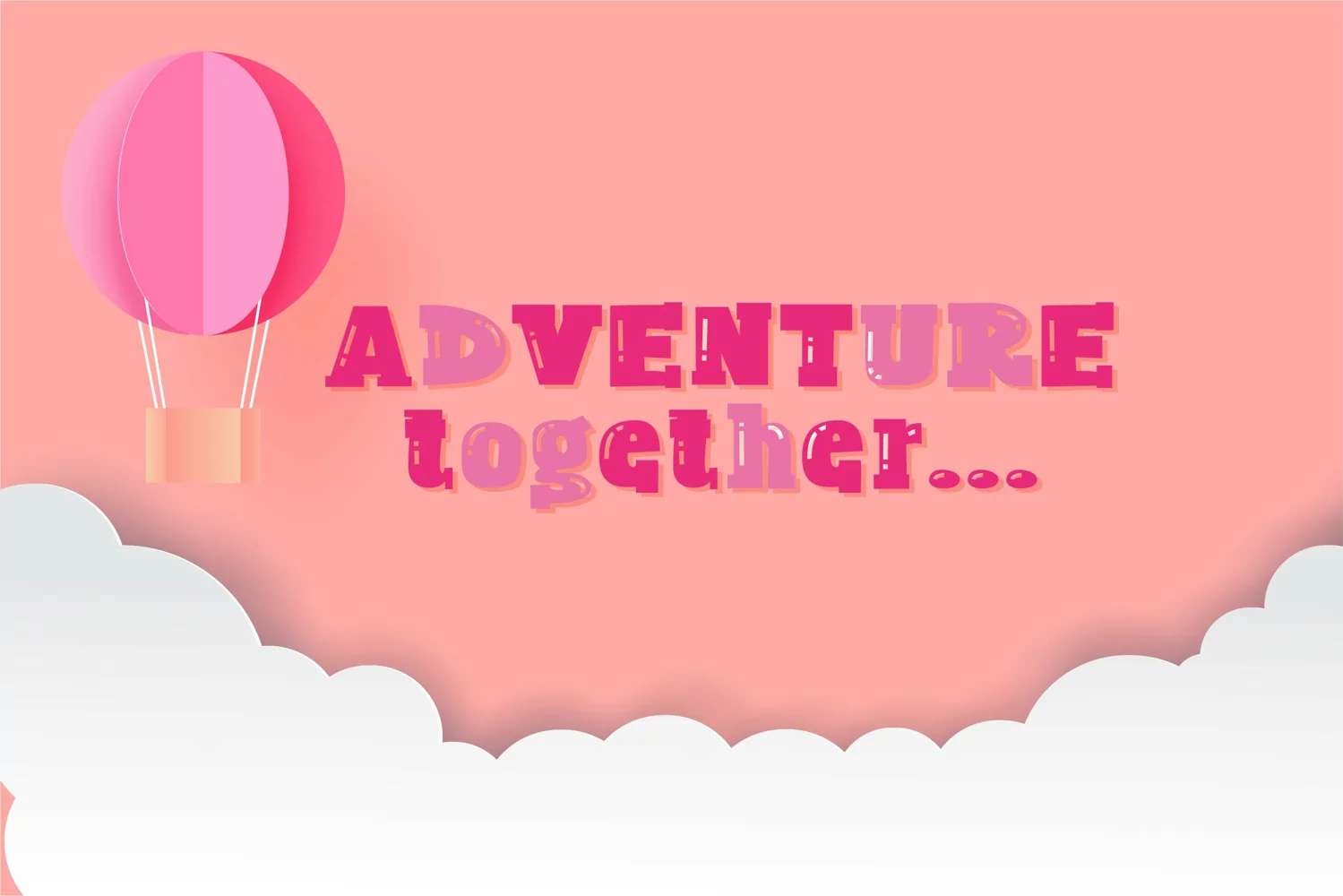
Big Boy Bright is a cute and blocky display font. Its playful style makes it perfect for any design you can think of. Add it with confidence to your creative projects, and notice how they capture everyone’s attention! Includes regular and bright.